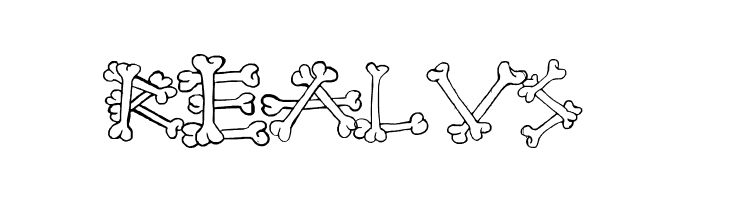
A bold, hand-drawn font with rugged, uneven strokes and a vintage feel.
( Fonts by Creative Media Lab )
A bold, decorative font with playful, curly serifs and a whimsical style.
A bold, decorative font with a skeletal motif, perfect for dramatic themes.
( Fonts by Sophie Fraser )
A bold, bone-themed font ideal for spooky or Halloween projects.
An artistic font combining skeletal elements with roses for a bold, decorative look.
( Fonts by www.sweeep.fr - Damien Gosset )
A raw, edgy font with jagged strokes and a distressed, graffiti-like appearance.
A playful, quirky handwritten font with thin, uneven strokes.
A bold, dynamic script font with flowing, cursive letterforms.
( billyargel.blogspot.com/ )
A bold, textured font with a rugged, distressed appearance.
A bold, decorative font with a distressed, grunge texture, ideal for thematic designs.
A playful, bone-themed decorative font perfect for spooky designs.
A bone-inspired font with jagged, hand-drawn strokes for a bold, edgy look.
( bonezdesignz.com )
A decorative font with a bone-like, skeletal design.
( Fonts by Vunira Design )
A decorative font with camping-themed illustrations integrated into each character.
Hand-drawn, food-themed cartoon illustrations replace standard glyphs.
A high-contrast serif font with elegant, modern design elements.
A bold, playful handwritten font with rounded edges and a casual style.
A playful, bold handwritten font with rounded letterforms.
A playful, casual handwritten font with smooth, flowing lines.
A bold, expressive script font with dynamic curves and modern style.
( Roy Jorse - creativemarket.com/jorse )
A bold, decorative script font with playful curves and flourishes.
A modern, elegant script font with flowing cursive letters and dramatic flourishes.
A decorative, modern calligraphy script with elegant swashes.
A dynamic, expressive handwritten font with fluid strokes and a brush-like texture.
A dynamic, cursive script font with flowing, slanted letters and lively contrast.
A dynamic and expressive script font with fluid, sweeping strokes.
An elegant, high-contrast font with elongated, narrow characters.
A bold, geometric 3D font with Art Deco influences and intricate patterns.
An elegant script font with flowing lines and classic calligraphic style.